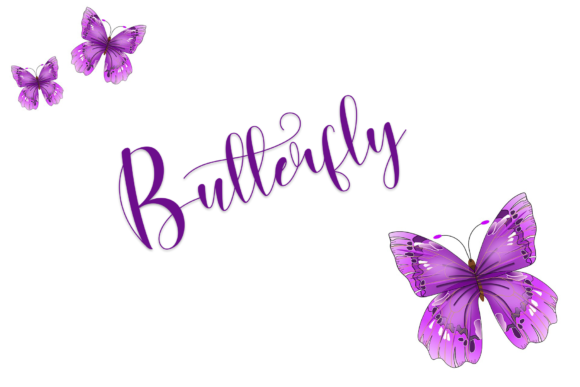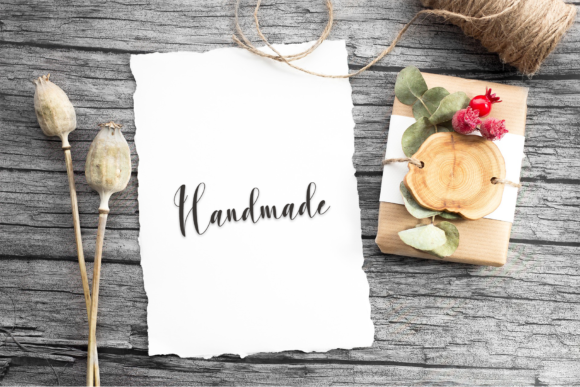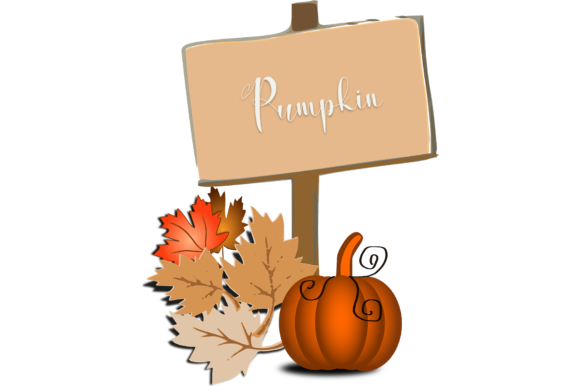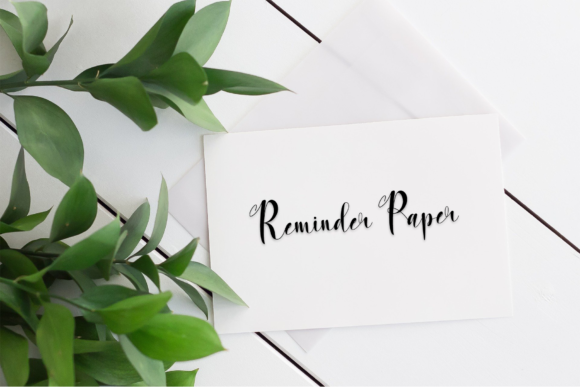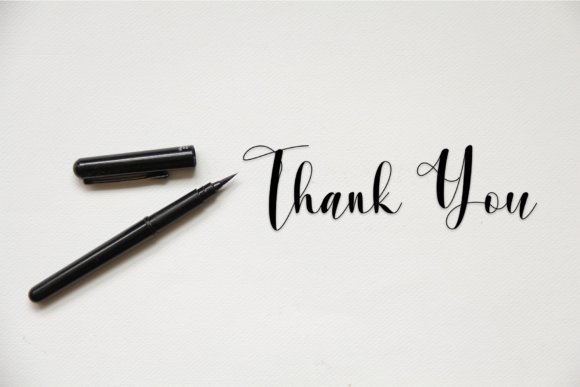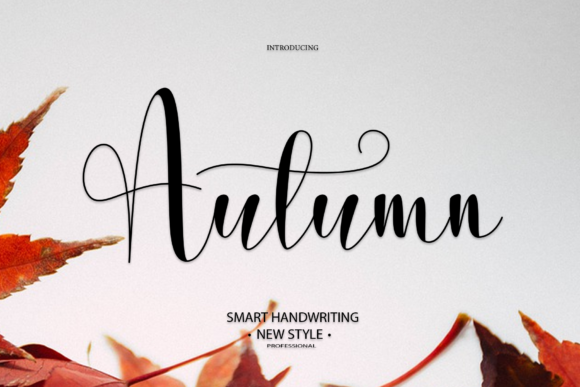
The Magic of Autumn Font: A Designer’s New Best Friend
I’ll never forget the time I was working on a project for a cozy fall-themed cafe, and I just couldn’t find the right font to capture the warmth and playfulness of the season. The client wanted something that would make their menus, flyers, and social media posts stand out, but everything I tried seemed either too boring or too over-the-top. That’s when I stumbled upon Autumn Font, and let me tell you, it was love at first sight! ✨
An Honest Review of Autumn Font
So, what makes Autumn Font so special? Here are a few things I absolutely love:
• ✨ Charming, playful characters that seem to dance along the baseline
• ✅ Perfect blend of elegance and whimsy
• ✅ Works beautifully for both digital and print projects
Of course, no font is perfect, and Autumn Font does have a few small quirks:
• 🤔 Some characters may not work well with very long sentences or paragraphs
• ⚠️ Limited availability of certain special characters
The Story Behind Autumn Font
Autumn Font was designed by a talented typographer who wanted to capture the essence of the fall season in a single font. Inspired by the changing leaves, cozy sweaters, and warm cups of coffee, this font is the perfect blend of elegance and playfulness.
Font Name Autumn Font
Author PAYJHOshop
Is Autumn Font suitable for body text? While Autumn Font is highly legible, it’s best suited for headings, titles, and short paragraphs. For longer blocks of text, you may want to choose a more traditional serif or sans-serif font.
Is Autumn Font available in different weights or styles? Currently, Autumn Font is available in a single weight, but the designer may release additional weights or styles in the future.